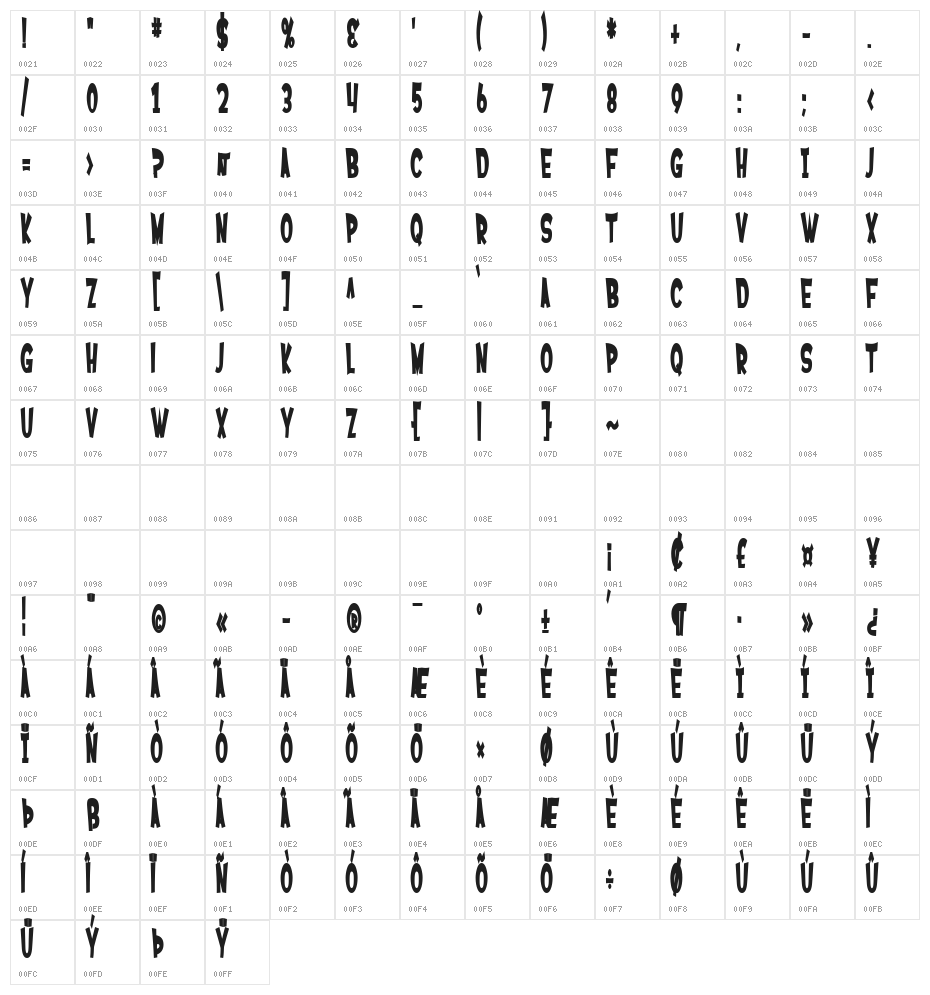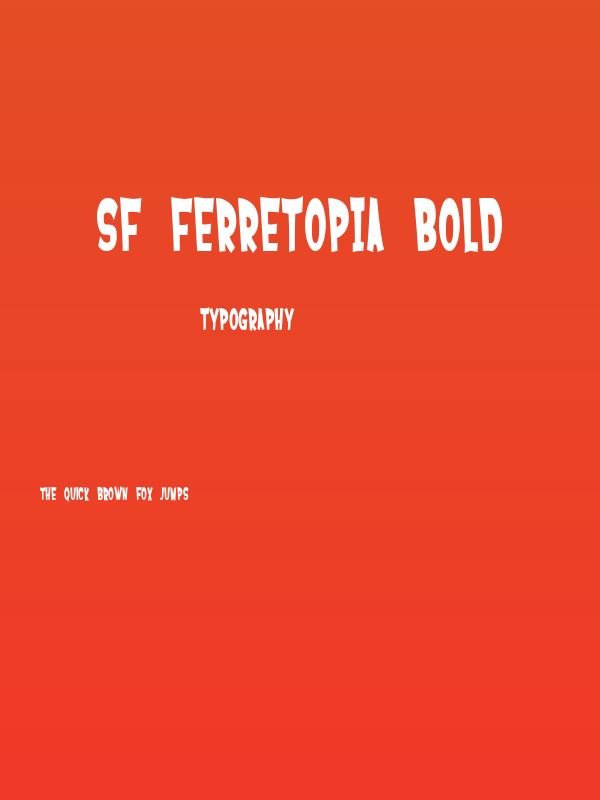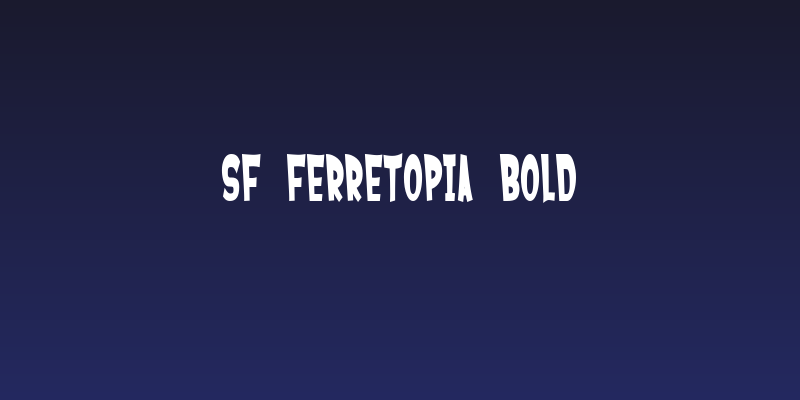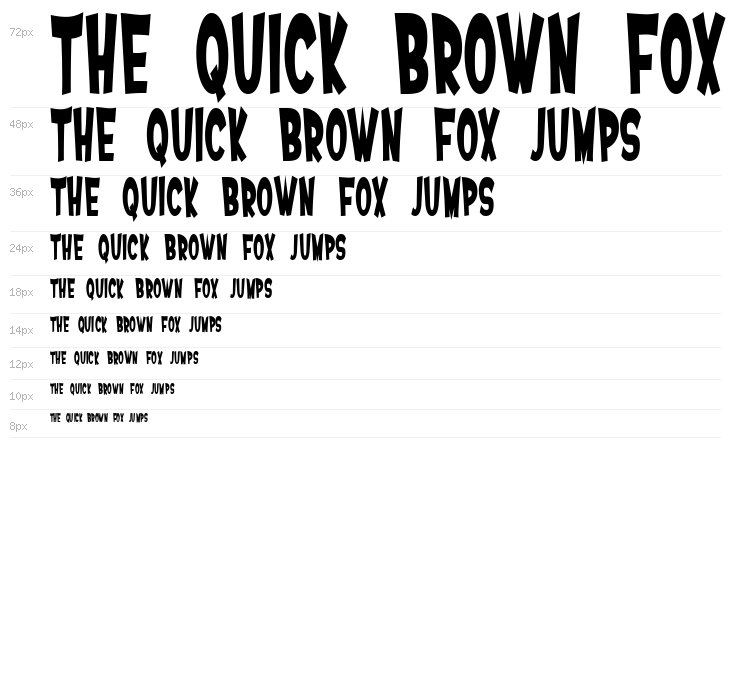
SF Ferretopia Bold Font
✎ Comic
| 分类 | Comic |
| 整体风格 | Playful |
| 推荐项目 | Ideal for children's books, comic strips, playful branding, and event posters. |